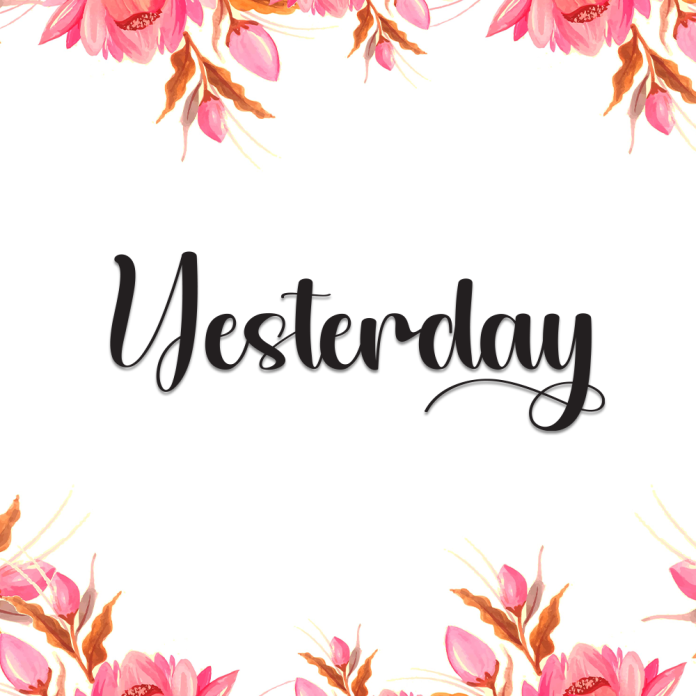
Yesterday is a graceful and flowing handwriting font that brings a sense of nostalgia and charm to your designs. With its smooth curves and natural pen strokes, this font is perfect for projects that require a personal and emotional touch.
Ideal for wedding invitations, love letters, branding, quotes, and greeting cards, Yesterday adds a romantic and sophisticated flair to any layout.
Elegant handwritten style
Fluid and smooth strokes
Ideal for personal, feminine, and romantic themes
Relive the beauty of handwritten moments with the timeless style of Yesterday.